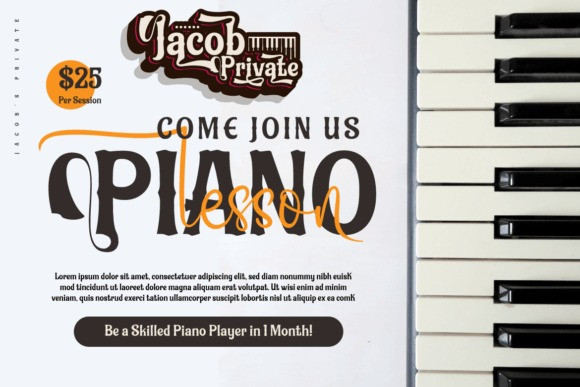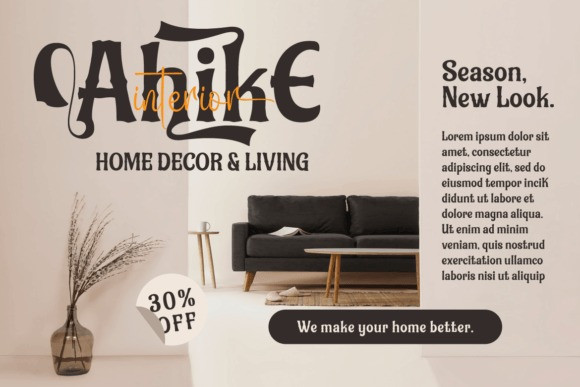
Kelaskin Font
Introducing Kelaskin Display Font , a classic serif font that exudes elegance and sophistication. Its timeless design is perfect for any project that requires a touch of old-world charm. This font is versatile and perfect for a wide range of applications, from branding to editorial design. With Kelaskin, you can bring a touch of timeless class to your design projects.